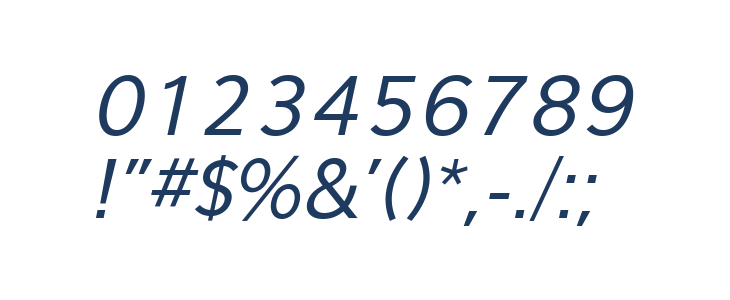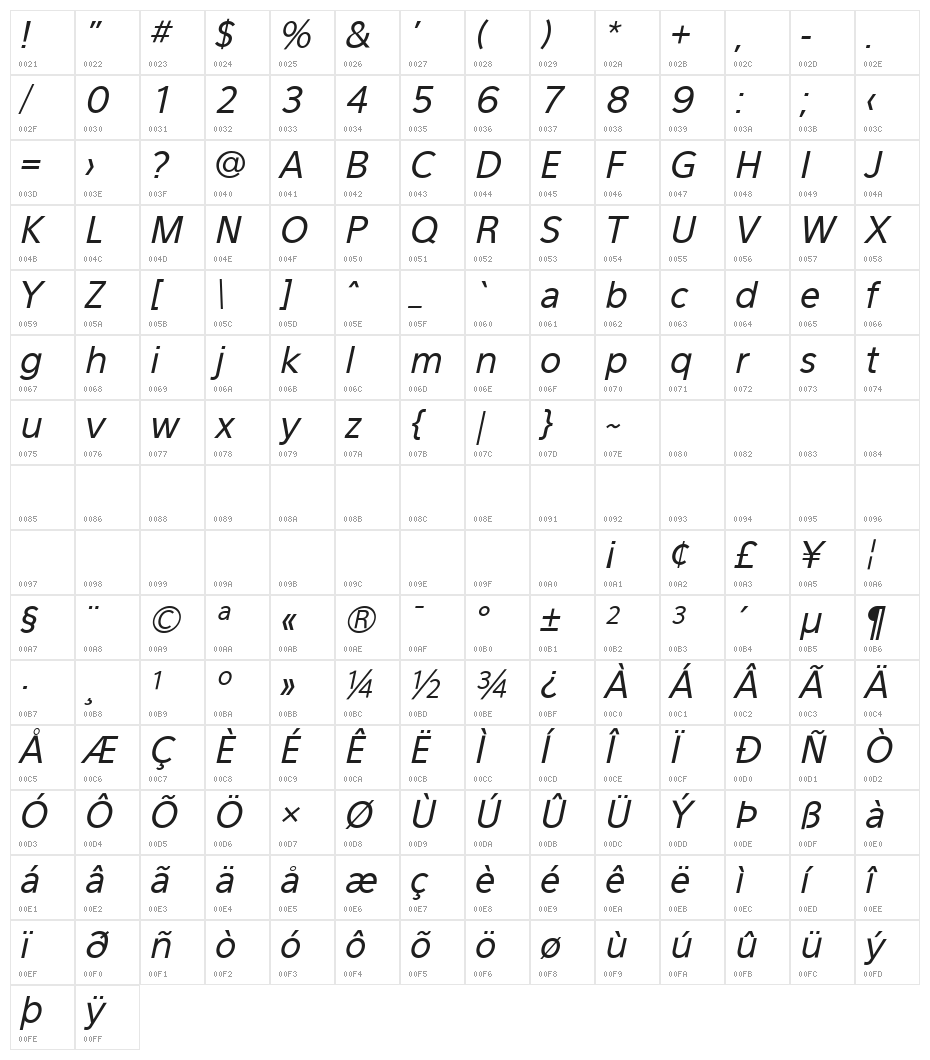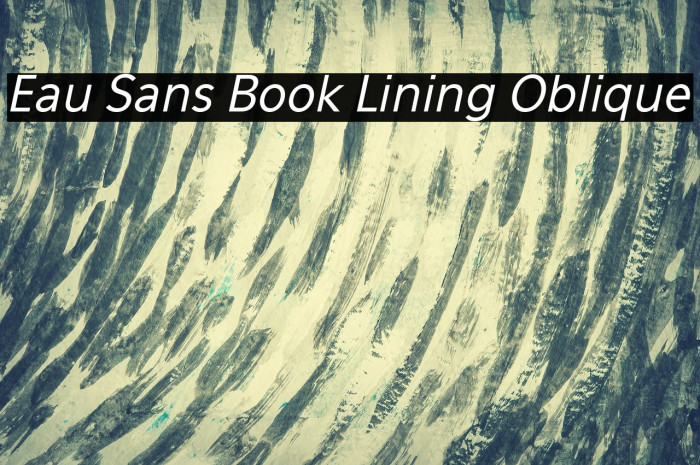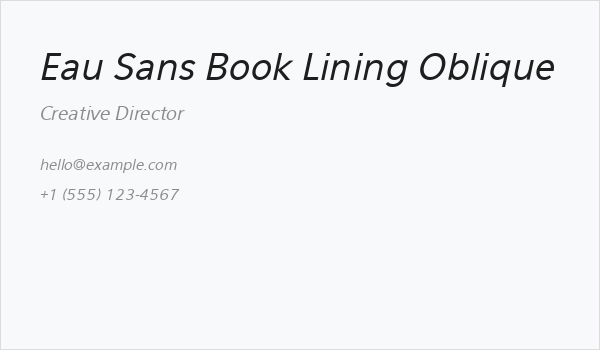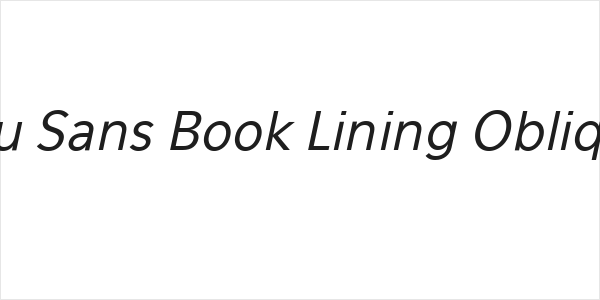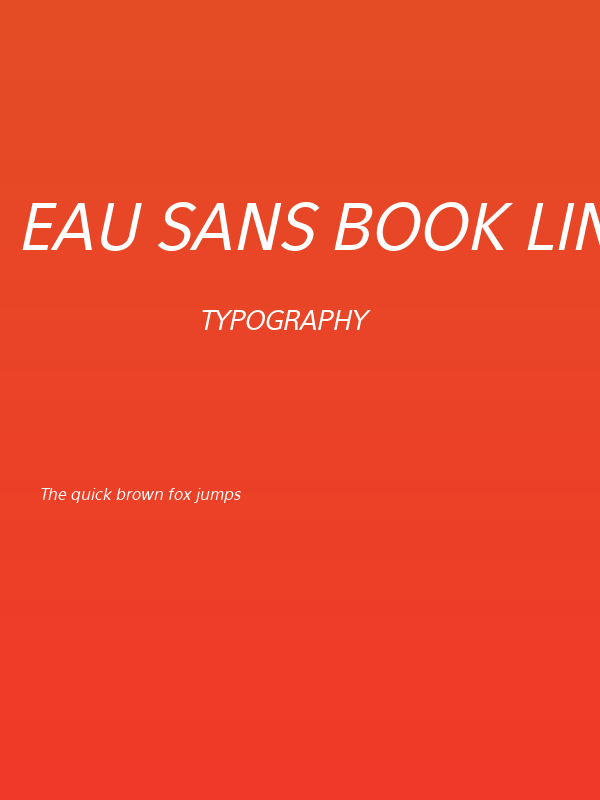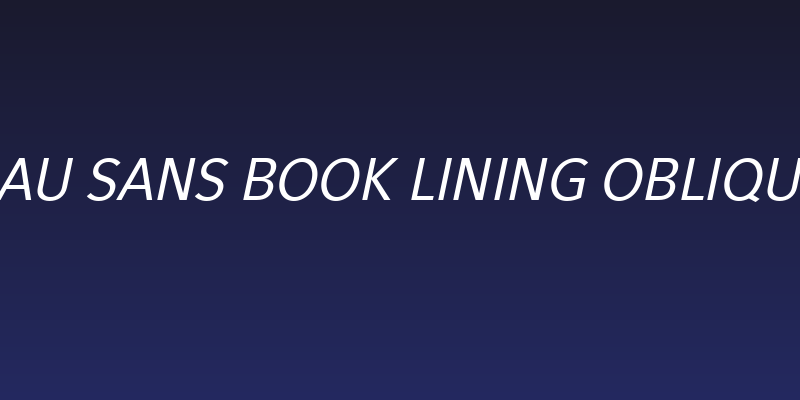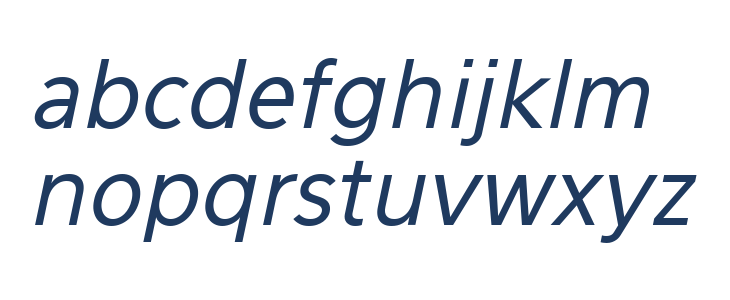
Eau Sans Book Lining Oblique Font
Eau Sans Book Lining Oblique Description
This font features a clean and modern sans-serif style with a slight oblique slant, giving it a dynamic and contemporary appearance. The characters are well-proportioned with a consistent stroke width, providing a uniform and balanced look. The uppercase letters are bold and assertive, while the lowercase letters maintain a smooth and approachable feel. The numerals are clear and easily distinguishable, making them suitable for a variety of applications. Special characters are designed with precision, ensuring they complement the overall aesthetic. The font's simplicity and elegance make it versatile for both digital and print media.